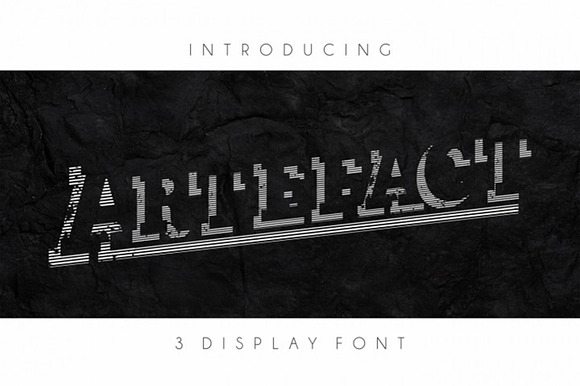
Artefact Display Font in 3 Versions
Artefactor is a stylish modern font that is based on idea of striped shadows on damaged and scratched surface. Creative and mild corners compared within this font with attractive design and incorporated shadows stripes. Overall font design is only shadows that make visually image of every letter. Use this font to create incredible design work now!
Artefact Display Font in 3 Versions by Vintage Font Lab fits naturally into Branding, posters, packaging, typography.